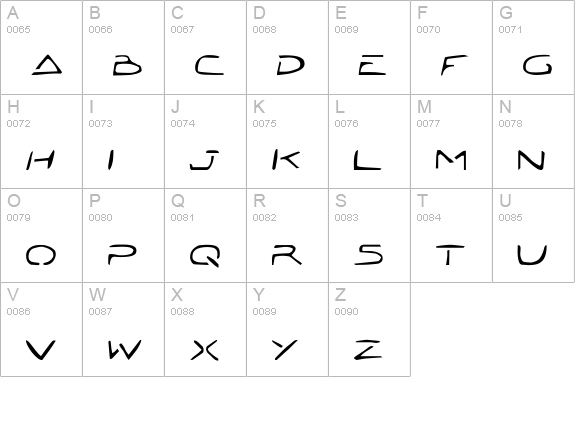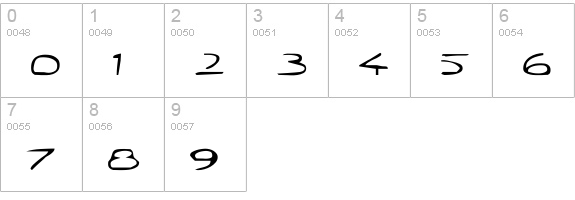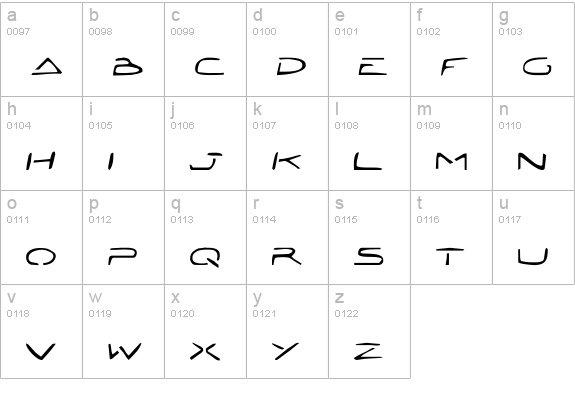
Introducing Jetta Tech font, a sleek and modern typeface designed to add a touch of sophistication to your designs. With its clean lines and futuristic aesthetic, Jetta Tech is perfect for a wide range of projects, from tech websites to sci-fi book covers. This versatile font features sharp edges and a high-tech vibe that will make your text stand out. The best part? Jetta Tech font is completely free to use! You can easily download it from FontsMarket.com and start using it in your projects right away. Whether you're a designer looking to add a contemporary touch to your work or a tech enthusiast wanting to enhance your digital creations, Jetta Tech font is the perfect choice. Don't miss out on this fantastic font - download it today and take your designs to the next level!